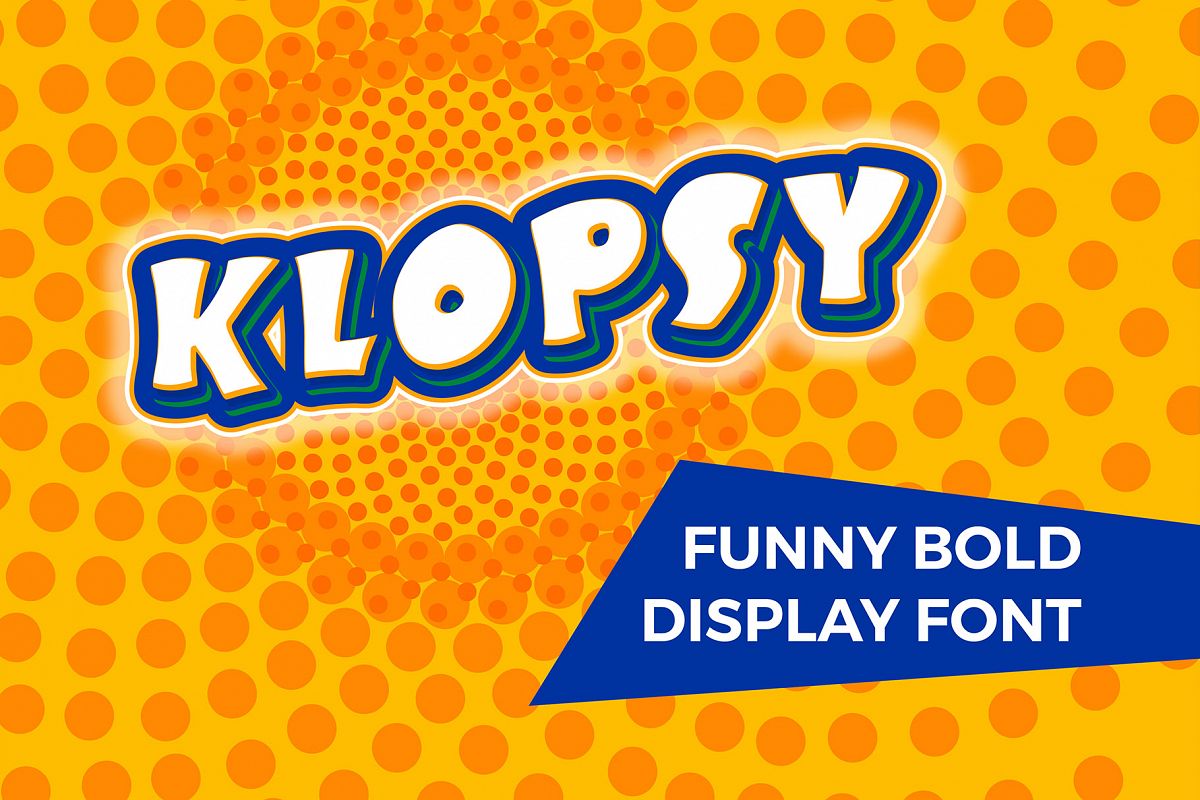
KLOPSY - funny bold display font
Klopsy-Bold
Klopsy is funny bold display font designed for headlines and typographic applications.
Take it for a spin and make something playful.